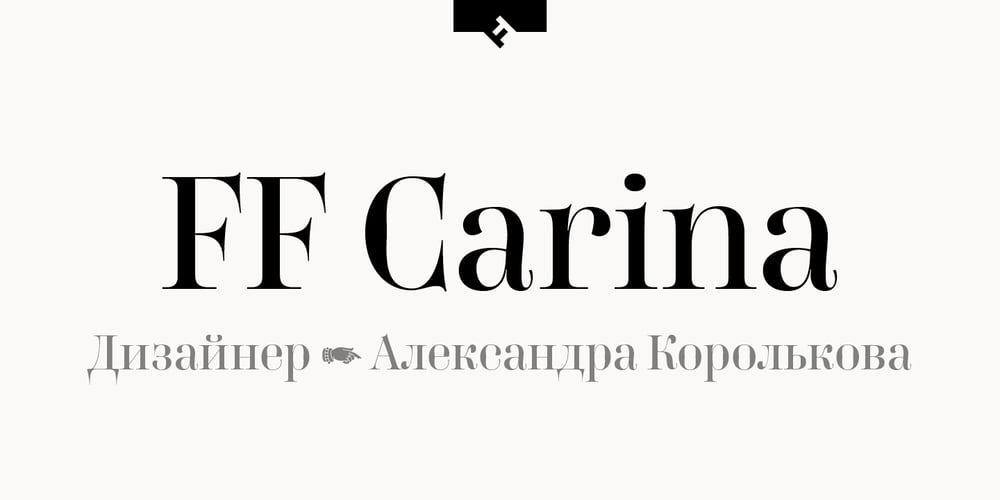
FF Carina
FF Carina font
FF Carina Font Family was designed by Alexandra Korolkova and published by FontFont. FF Carina contains 3 styles and family package options. Carina is based on the Modern serifs from the 18th and 19th centuries. With high contrast and proportions, the font has a pronounced feminine nature tailored by its stylish details and ornamental swashes and ligatures. The round letter shapes evoke the impression of pointed pen calligraphy. Carina s most striking feature is the Cyrillic glyph set (together with swashes and ligatures) that is created by a native Russian designer.